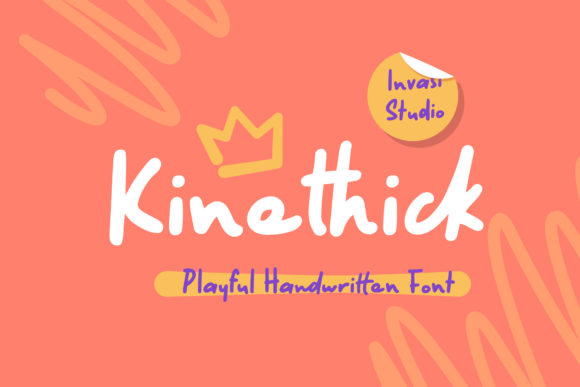
Prepare yourself to be mesmerized by Kinethick, the script font that will ignite your creative spirit and transform your designs into captivating masterpieces. Kinethick, crafted by the skilled hands of invasistudio, is not just a font; it's an artistic journey that beckons you to embark on a world of imagination and boundless expression.
Immerse yourself in the whimsical charm of Kinethick, a font that dances across the page with its playful strokes and enchanting curves. Its lively personality adds a touch of magic to every project, whether you're crafting logos, branding designs, or creating eye-catching social media posts. Kinethick's unique style makes it the perfect choice for adding a personal touch to your creative endeavors.
Kinethick is not just a tool; it's an extension of your creativity, a conduit through which your ideas flow effortlessly onto the page. Its handwritten feel evokes a sense of authenticity and warmth, making it ideal for projects that demand a human touch. Unleash your inner artist and let Kinethick guide you towards designs that resonate with your audience and leave a lasting impression.
With Kinethick, the possibilities are endless. Create stunning wedding invitations that capture the essence of love and romance, design posters that pop with energy and vibrancy, or craft handmade greeting cards that convey your heartfelt sentiments. The versatility of Kinethick knows no bounds, making it the perfect companion for any project that calls for a touch of creativity and flair.